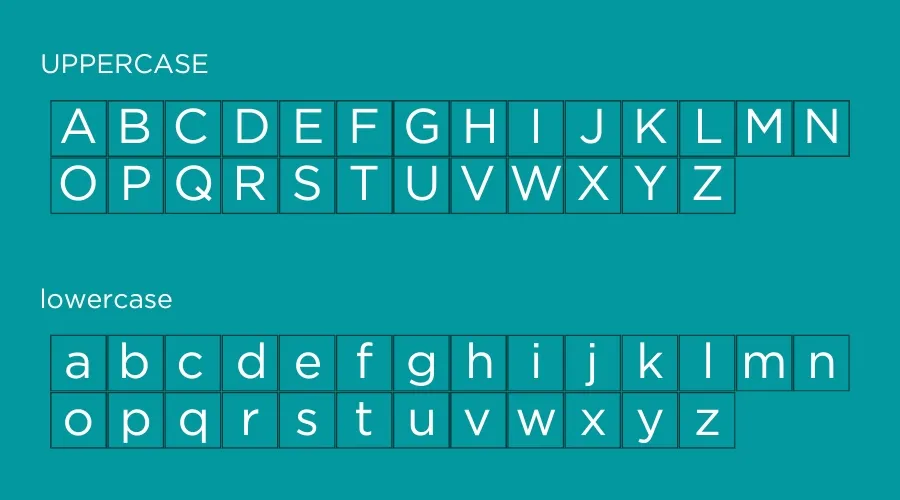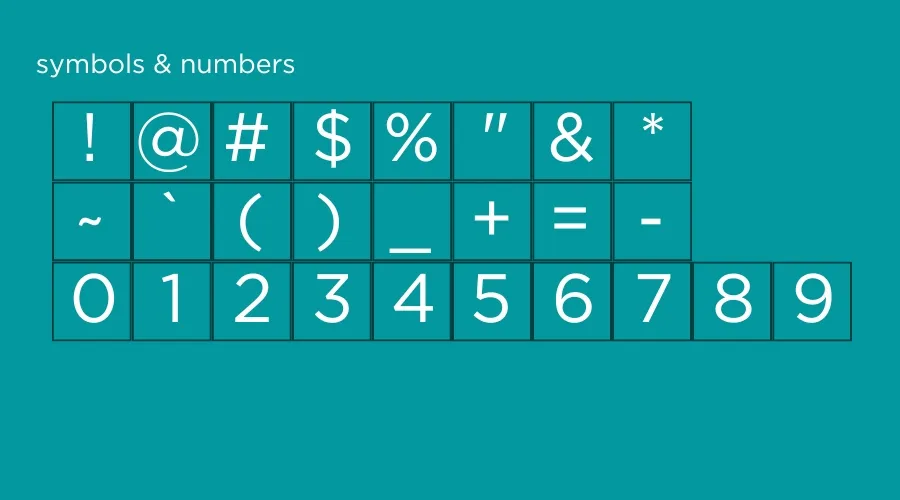
Gotham Font
About Gotham Font
Tobias Frere Jones designed Gotham Font which is a sans-serif font. It too incorporates a set of optional cords, which includes its versatility. This typeface contains in-vogue glyphs and characters the design may be an incredible choice for any extent that needs a touch of class. Get it and include a stylish touch to the following extent.
You’ll do your coursework introductions utilizing this typeface and make it more appealing to your instructors and classmates. The design can be used to create interesting covers, shop names, logos, and logos for shops, stores, and websites.
As well as branding projects, houseware designs, packaging, or even simply as an attractive text overlay on any background image, the typeface is suitable for all types of projects. The typeface also can create stunning logos and branding materials.
This typeface moreover has both lowercase characters and capitalized characters, as well as a huge number of ligatures. This typeface helps creators when designing fields. You can use this typeface to create remarkable and eye-catching designs.
It is also appropriate for the creation of long and short paragraphs. Also appropriate for artwork and banner design.
There are smaller capital letters in it. Using this typeface in combination with many other typefaces can truly assist produce an original and eye-catching style.
Projects that involve the font include emails and texts, webpages, emblems, and also more. It’s ideal for giving your work uniqueness as well as making it differentiate itself from other projects.
Due to its eye-catching design, this typeface is commonly used in a lot of stylish projects. For developing attractive webpages, you can import this typeface into a CSS file.
Are there any similarities to Gotham Font?
This typeface is similar to a large number of fonts, but a Mesmerize Font is a great alternative.